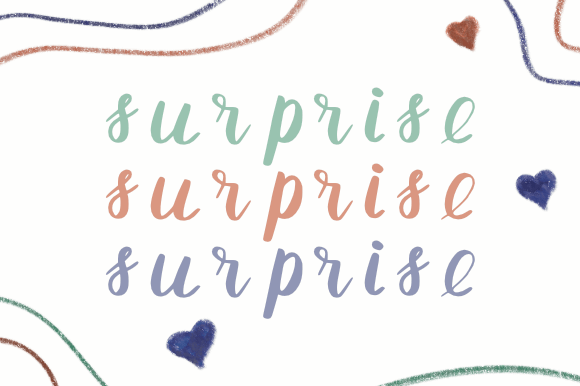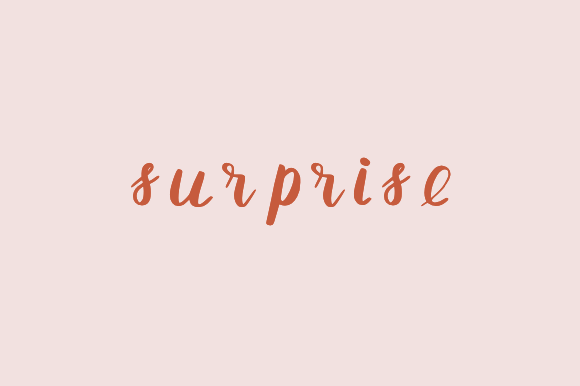
Surprise Font
Add Cute and Stylish Vibes with Surprise Font
Surprise Font is a cute and stylish handwritten typeface that brings sweet and playful vibes to your creative projects. Whether you are designing t-shirts, posters, social media graphics, logos, or other products, Surprise Font adds a fun and friendly touch. Its lively and charming style makes your designs stand out with personality and appeal.
Moreover, its balanced strokes and unique character shapes give your work a fresh and engaging look.
Versatile Uses for Surprise Font
Surprise Font is suitable for a wide range of projects, including:
• T-shirt designs and apparel
• Posters and flyers
• Social media posts and digital content
• Brand logos and corporate identity
• Greeting cards and invitations
• Product packaging and labels
Thanks to its cute and stylish handwritten style, SurpriseFont adds energy and charm to your creative ideas.
It also features well-spaced letters and optimized kerning to keep your text readable and visually appealing across different sizes and formats.
Why Designers Choose Surprise Font
Designers and creatives love SurpriseFont for its playful and charming handwriting style. It adds a personal and fun touch that makes any project lively and memorable. Whether you are a professional or a hobbyist, SurpriseFont helps you create beautiful and engaging typography.
Use SurpriseFont to bring cute and stylish vibes to your next creative project.